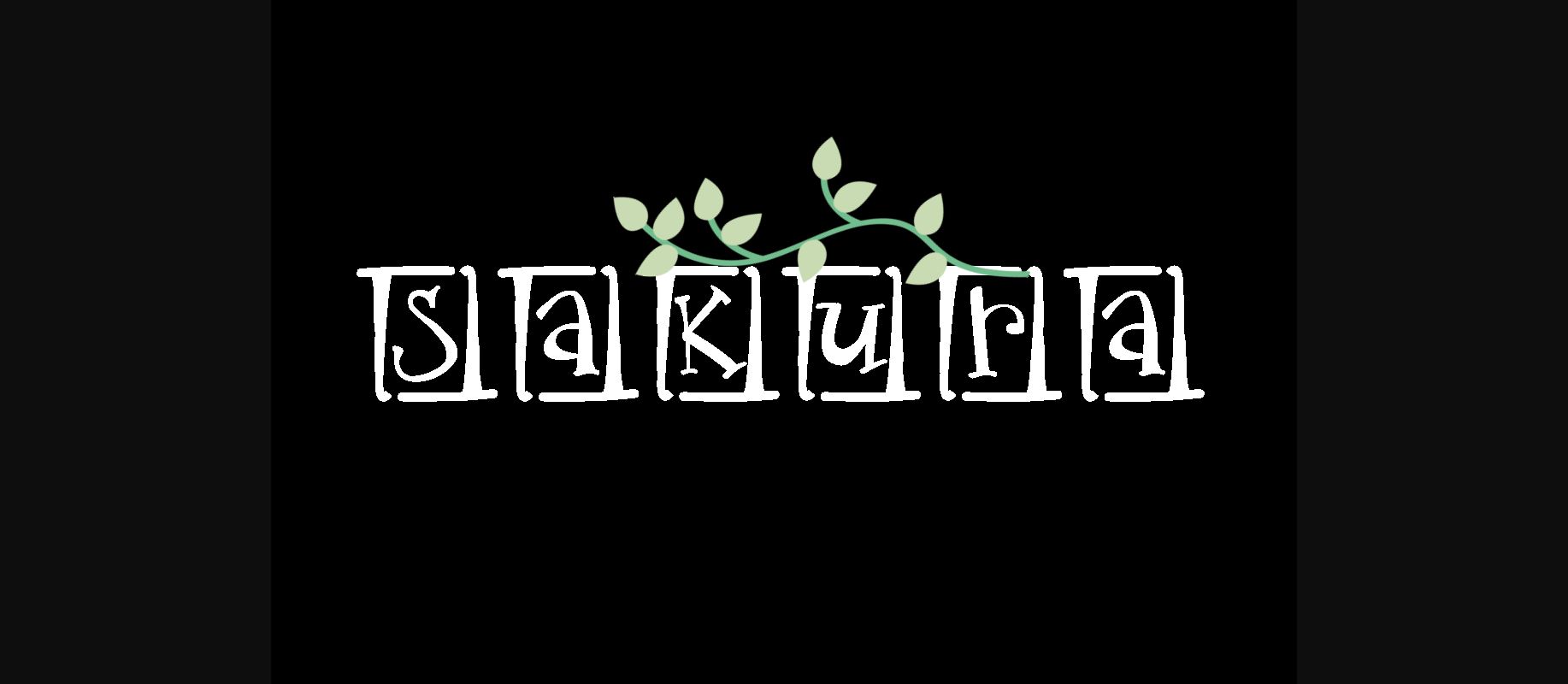
About K26 Sakura Font
A simulated ink font designed to capture the simplicity and beauty of nature. Use as a simple color design against a stark background, or change the colors to reflect the design of your project.